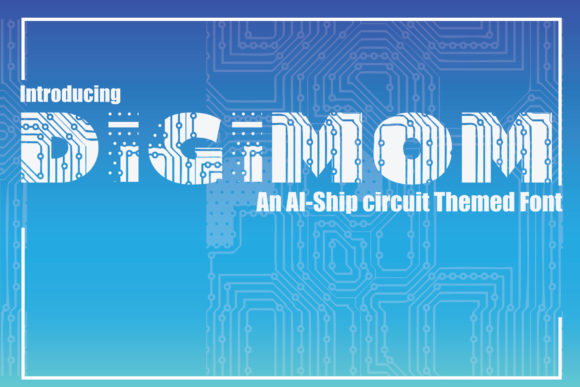
Welcome to the world of Digimom Font, a charming and authentic decorative font that will infuse your creative projects with a unique and captivating personality. This extraordinary font family, meticulously crafted by the talented KtwoP, is the perfect choice for those seeking to make a lasting impression.
Embark on a typographic adventure with Digimom Font, a creation that beautifully captures the essence of classic decorative fonts while adding a touch of contemporary flair. Its playful and intricate details, reminiscent of hand-drawn artistry, will elevate your designs to new heights.
Unleash your creativity and explore the endless possibilities that Digimom Font has to offer. Its versatility knows no bounds, making it the ideal companion for a wide range of projects. From eye-catching letterheads and stunning titles to elegant stationery and captivating designs, Digimom Font will effortlessly transform your ideas into visual masterpieces.
Immerse yourself in the world of Digimom Font and discover the boundless opportunities it presents. Let your imagination soar as you create remarkable T-shirt designs that are sure to turn heads and spark conversations. The unique charm of Digimom Font will make your designs stand out in the crowd, leaving an unforgettable impression on all who see them.
With Digimom Font at your fingertips, you hold the power to unlock a world of creative possibilities. Its versatility and enchanting aesthetics make it the perfect choice for designers, artists, and entrepreneurs seeking to make a lasting impact. Embrace the beauty of Digimom Font today and embark on a journey of self-expression and artistic fulfillment.